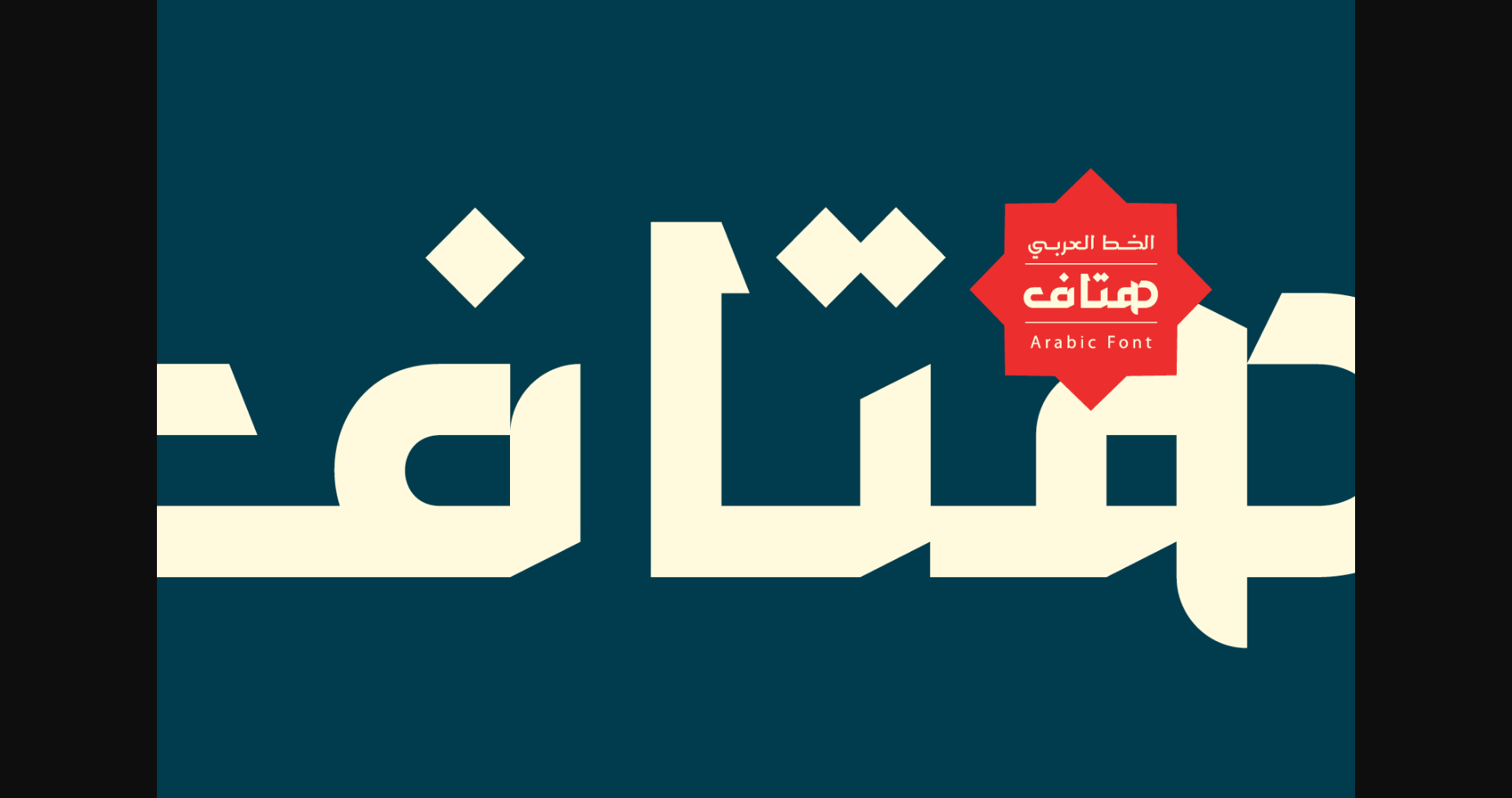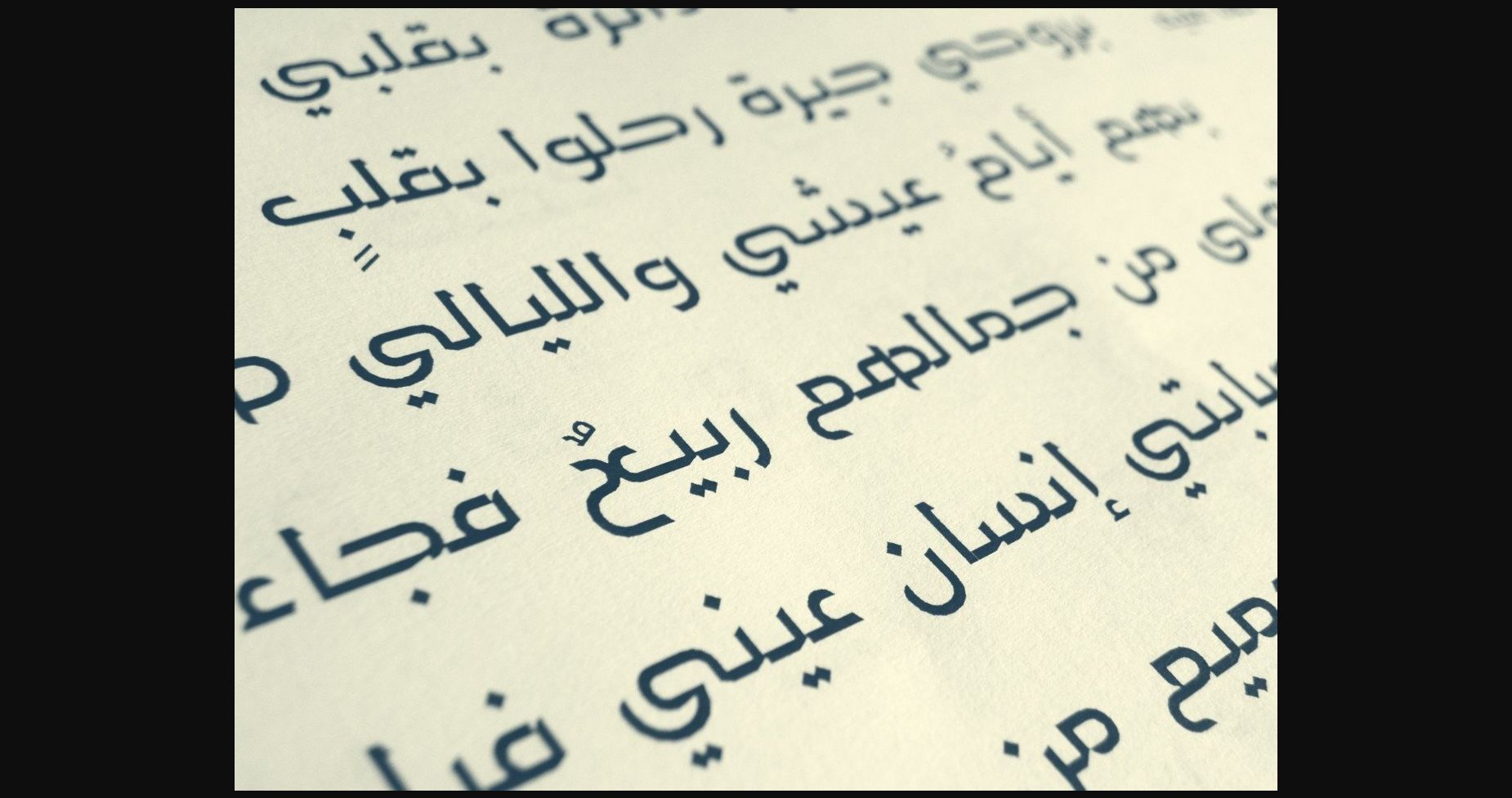
About Hetaf Font
Hetaf is an Arabic sans serif font that provides a diverting but enjoyable readability experience. It is suitable for both print and web designs. Add it now to your fonts library, and it will make your creative projects interesting and unique.